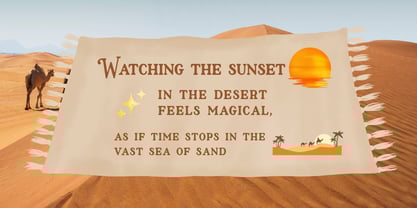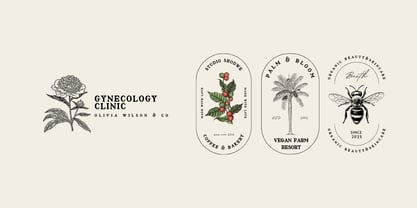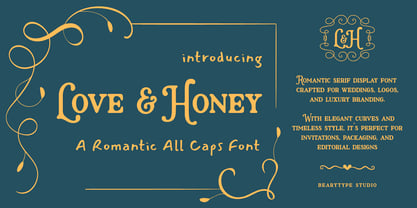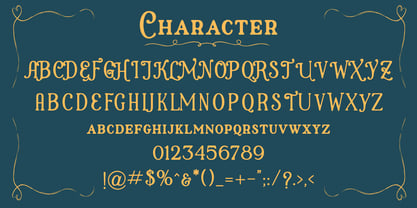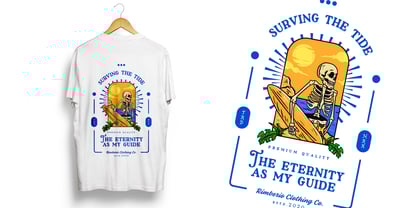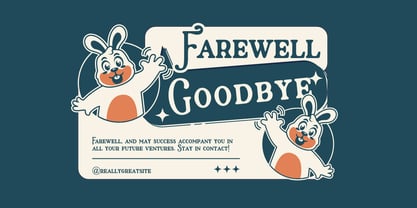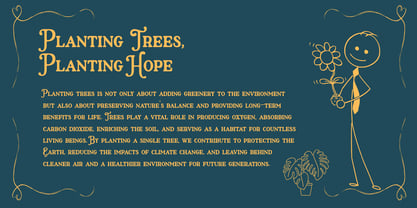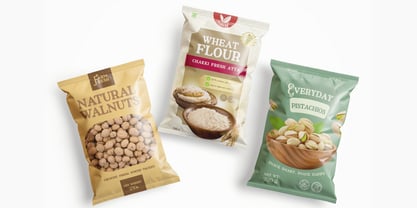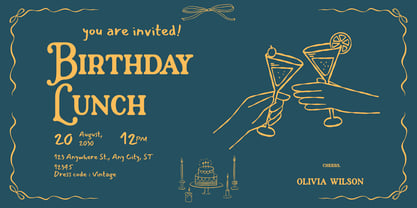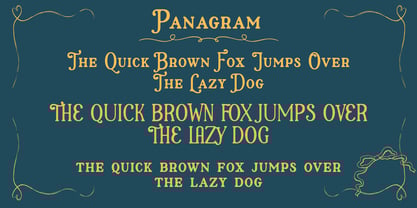
Love And Honey
by Beary
The Love And Honey Font Family was designed by Dian Haniffan Hadi and published by Beary. Love And Honey contains 1 styles.
Love And Honey – Elegant Romantic Serif Display Font (ALL CAPS) Love And Honey is a romantic serif display font in an elegant ALL CAPS style, blending classic sophistication with modern charm. Its graceful letterforms make it the perfect choice for wedding invitations, fashion branding, editorial headlines, beauty products, and premium packaging. Love And Honey gives designers the flexibility to create luxurious titles, high-end typography, and visually stunning layouts with ease. Why Designers Love It: ✅ ALL CAPS for strong and refined impact ✅ Romantic serif style – timeless yet modern ✅ Elegant alternates & extensive glyph set ✅ Ideal for luxury and high-fashion designs ✅ Easy to use for bold, beautiful headlines ✨ Love And Honey is the perfect font to express elegance, romance, and luxury in every design.
Designers: Dian Haniffan Hadi